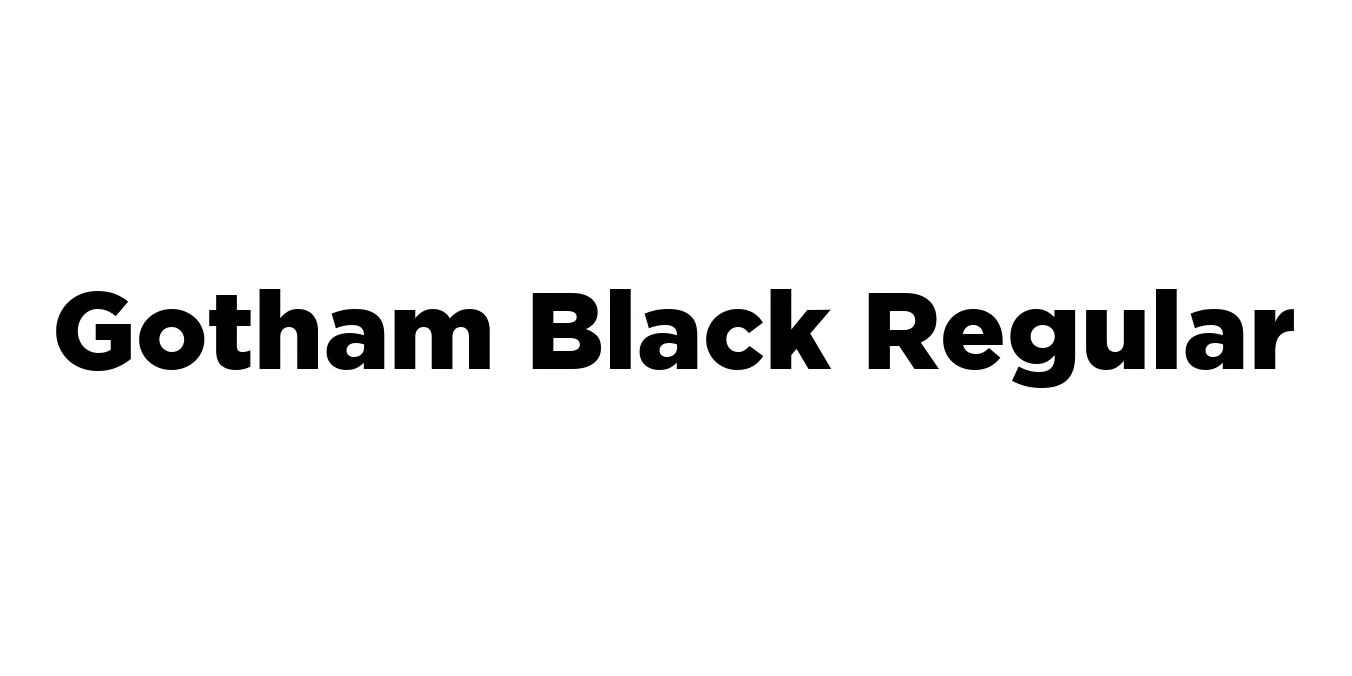
Gotham Black Regular
Designed by Tobias Frere-Jones
| Category | Geometric Sans-Serif |
| Designer | Tobias Frere-Jones |
| Similar Fonts | Montserrat, Proxima Nova, Raleway |
Gotham Black Regular is a geometric sans-serif typeface designed by Tobias Frere-Jones in 2000. Originally commissioned by GQ magazine, the font was inspired by the architectural signage found throughout mid-20th century New York City, specifically the no-nonsense lettering on the Port Authority Bus Terminal. Its design eschews traditional calligraphic influences in favor of clean, mathematical proportions that feel both timeless and distinctly urban.
The Black weight is the heaviest variant in the Gotham family, providing an authoritative and high-impact visual presence. It achieved worldwide recognition following its prominent use in Barack Obama's 2008 presidential campaign. Today, it remains a staple for designers looking for a bold, professional aesthetic in corporate branding, large-scale advertising, and modern editorial layouts.
Gotham Black Regular Best Uses
Perfect for creating high-impact titles and main headings.
Excellent for logos that require a clean and authoritative identity.
Highly effective for billboards, posters, and print media.
Ideal for bold graphic overlays and eye-catching social posts.